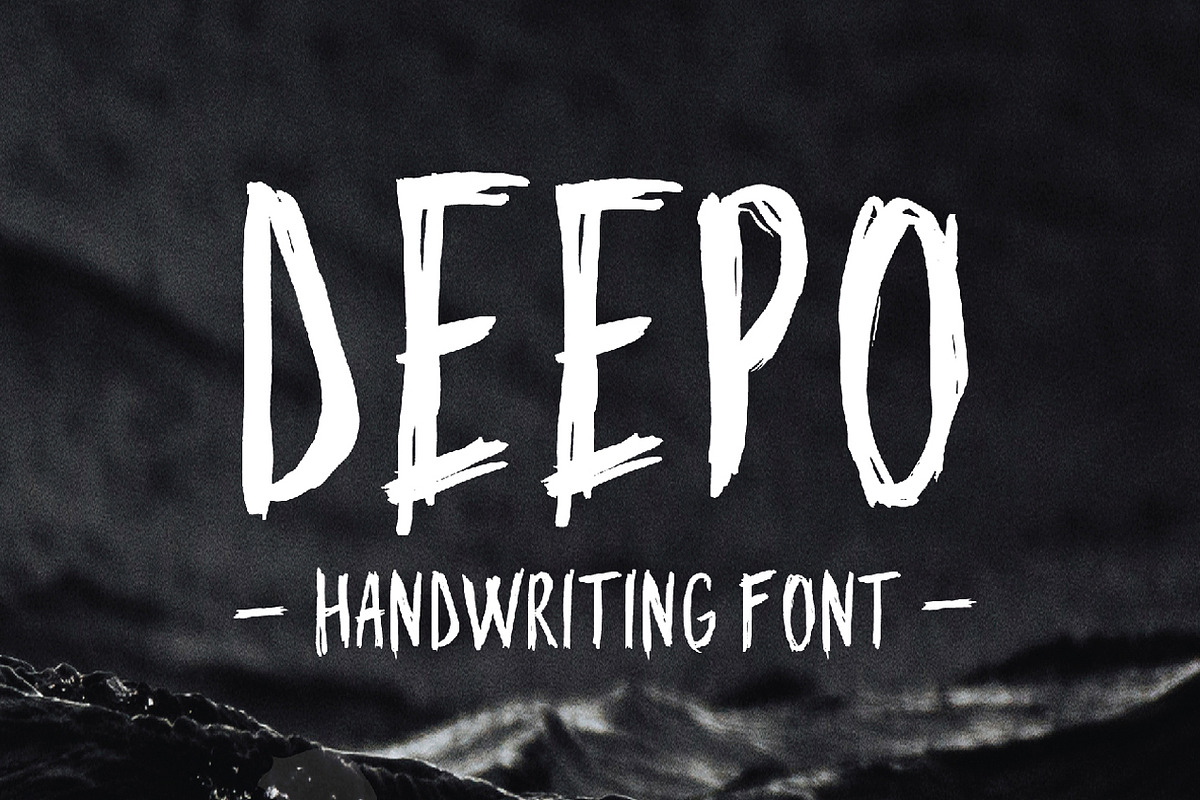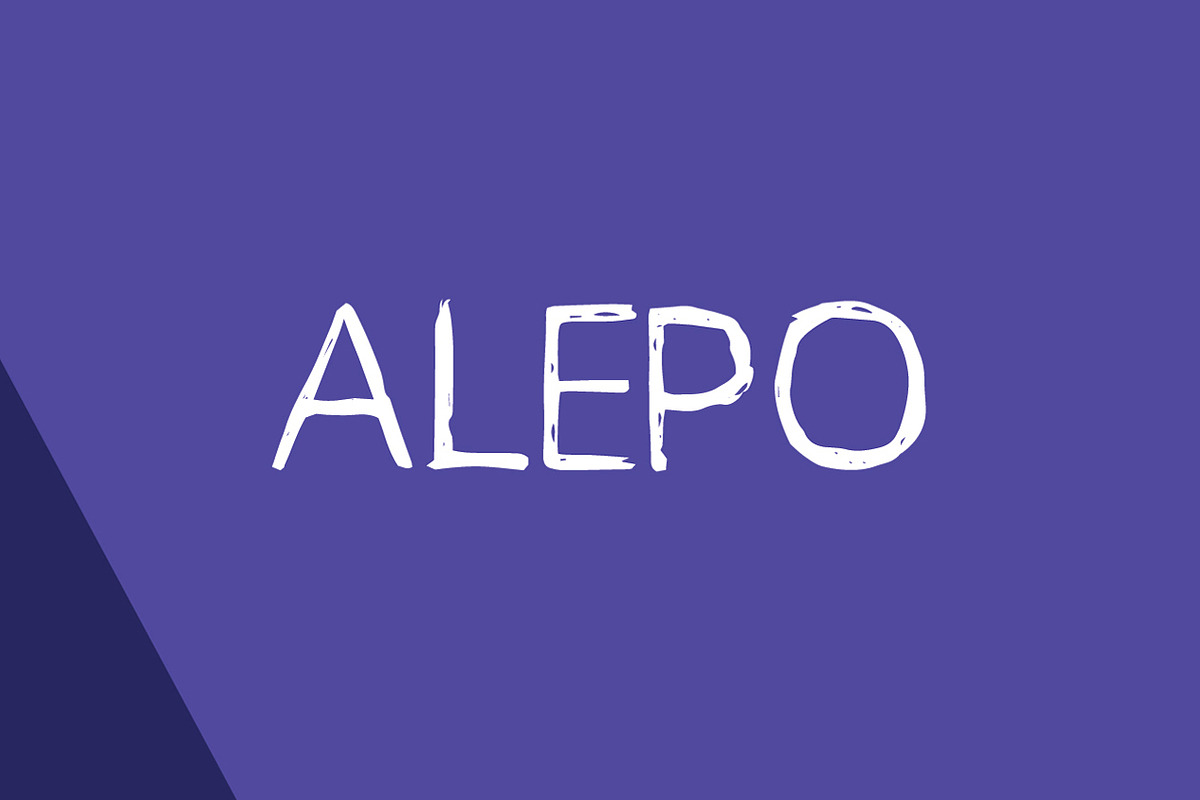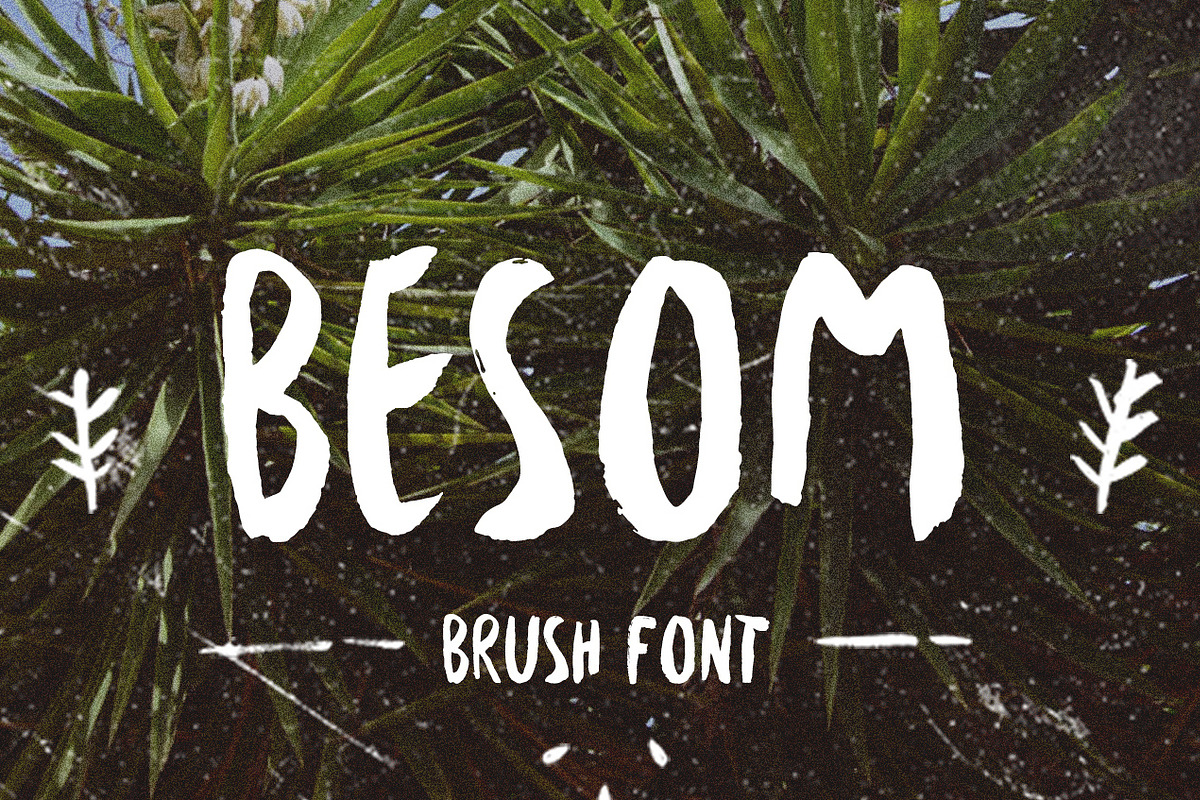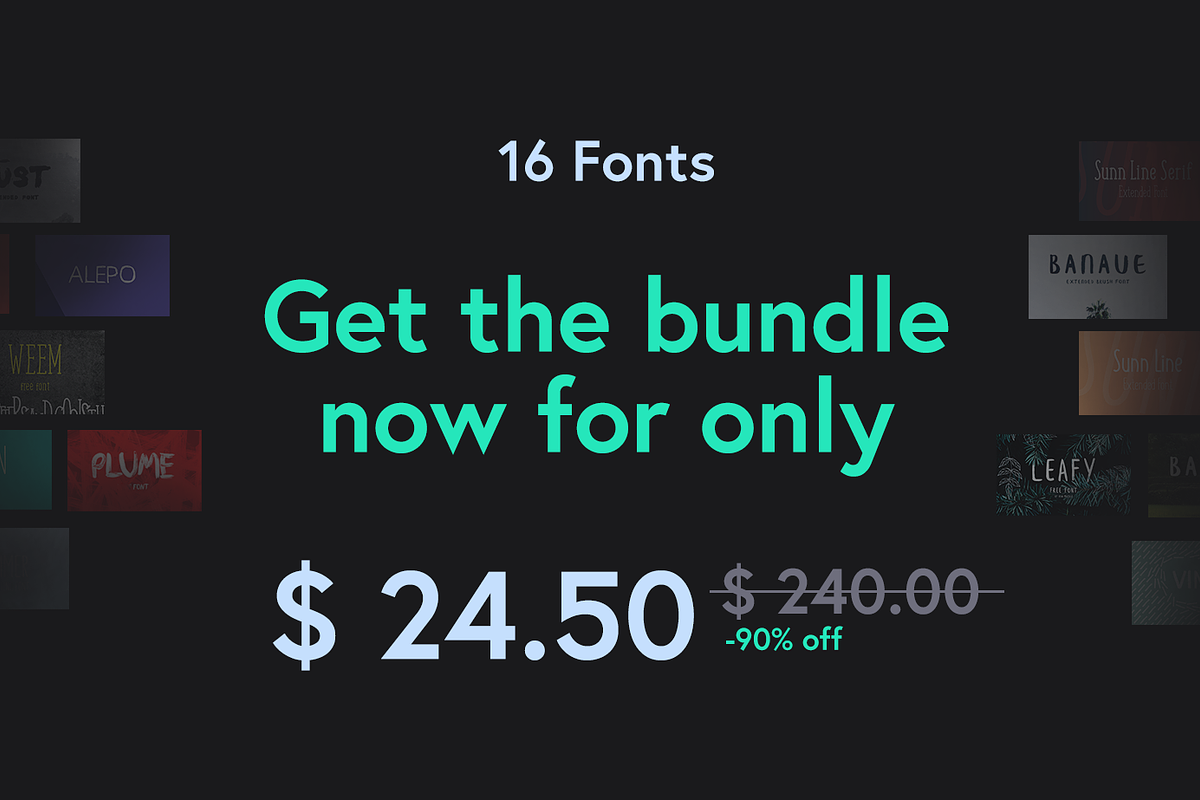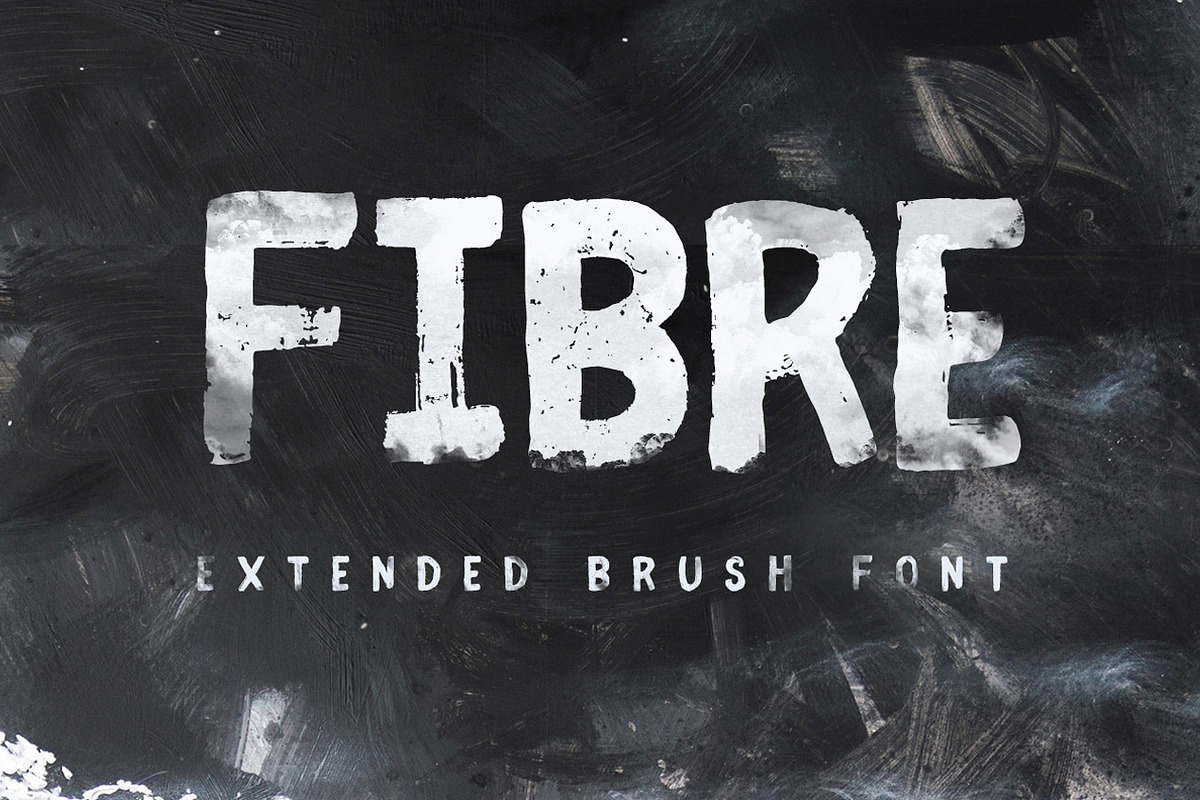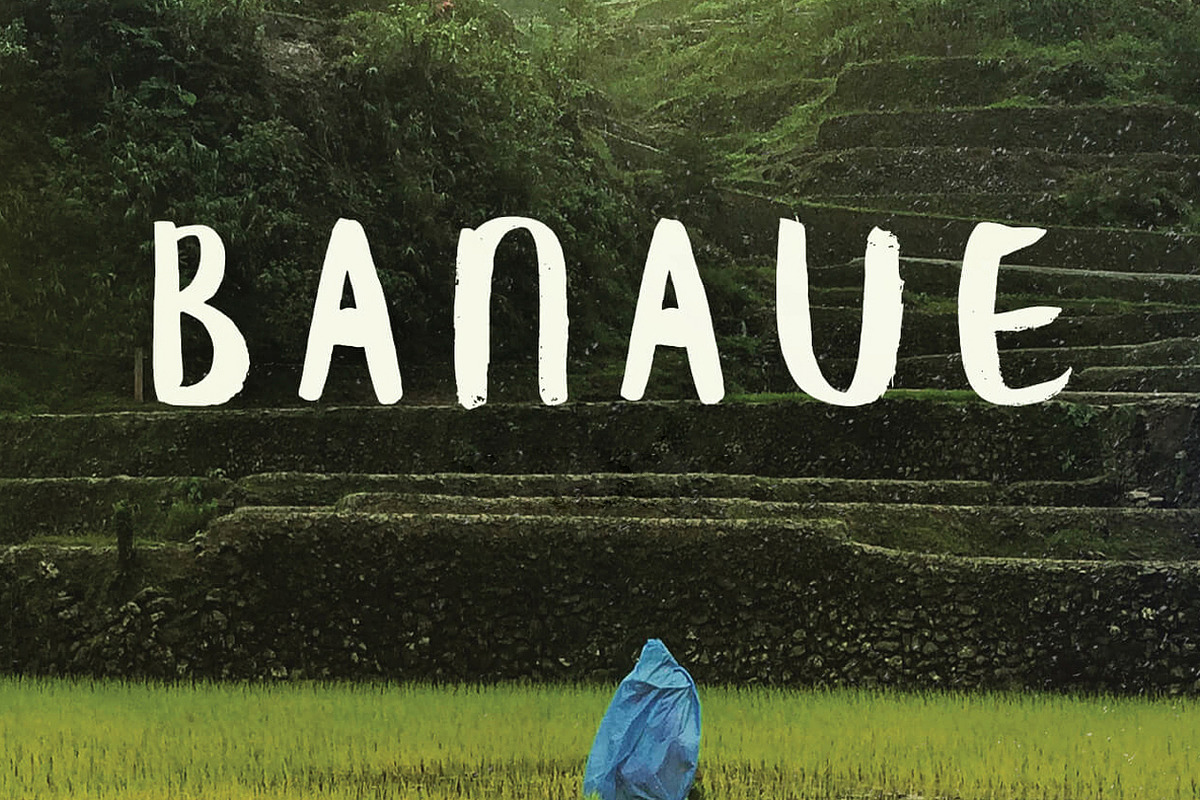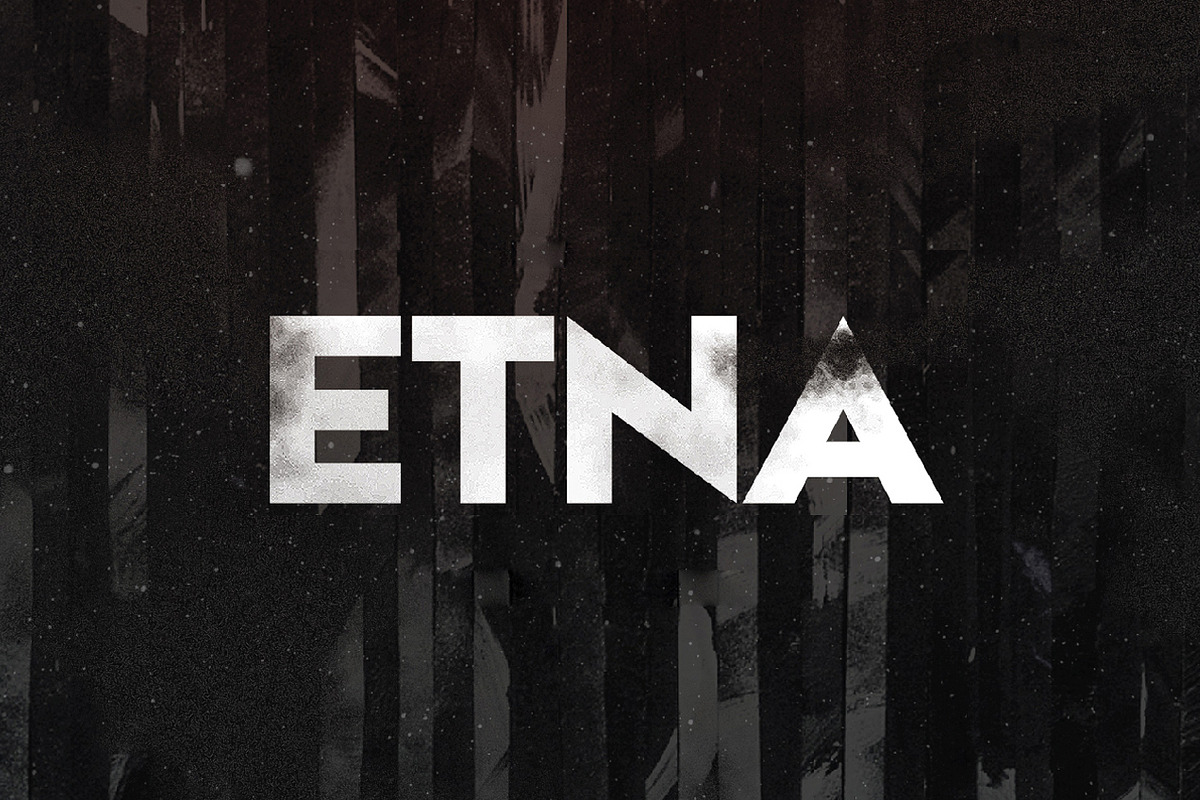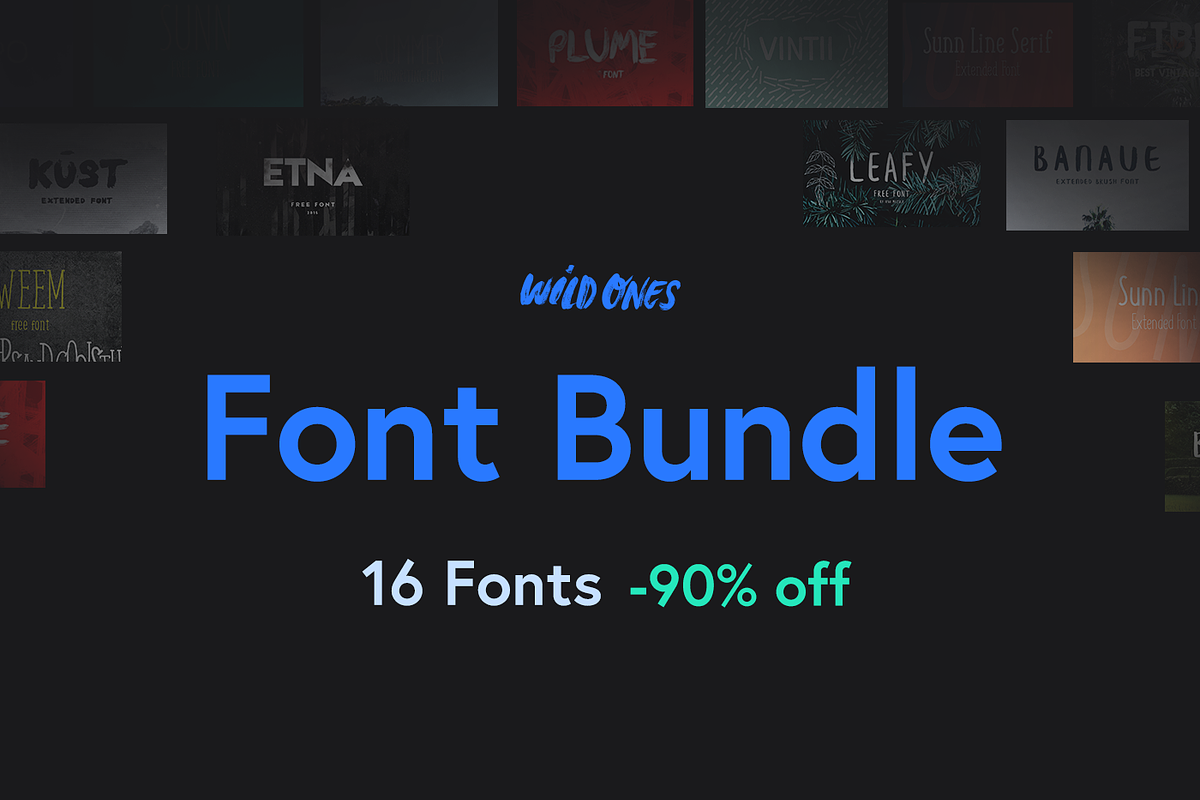
Wildones Font Bundle
Wildones Font Bundle by Wild Ones is a font selected for branding, posters, packaging, typography.
- The font bundle contains our best fonts, hand picked by us.
- To be precise it contains 16 fonts, from sans serif to handwritten brush fonts, also in the pack you will find our most successful fonts Bes
- Kust Extended Kust Extended
- Alepo Regular
- Banaue Regular
- Besom 2 Regular
- Deepo Regular
- Etna Etna
- Fibre Vintage Full Bold
- Fjord-free Regular
- Leafy Regular
- Modeka Regular